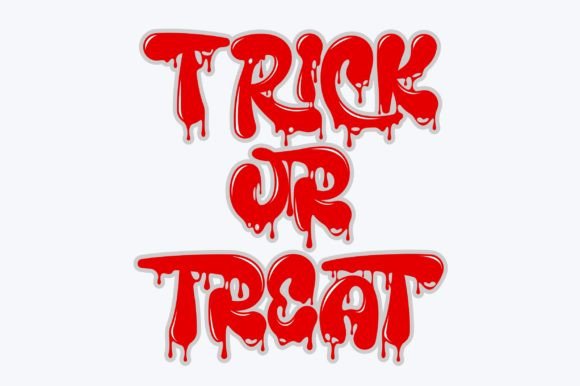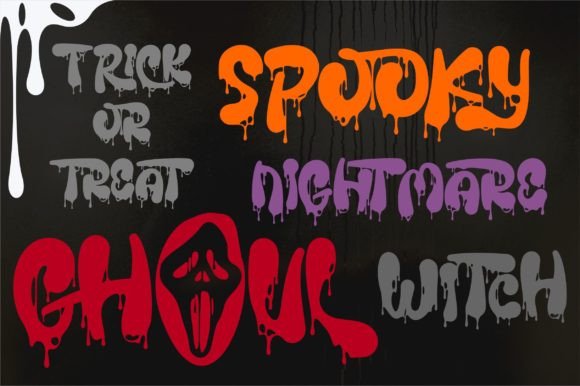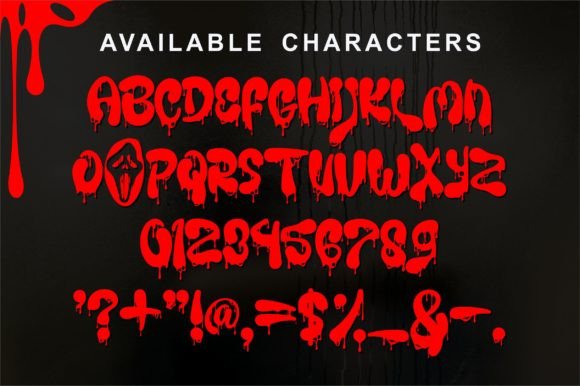
Spooky Blood Font Font
Spooky Blood is a dripping fun and thick display font. Its scary and spooky vibe makes this font perfect for Halloween and horror-themed projects.This font is PUA encoded which means you can access all glyphs and swashes with ease!